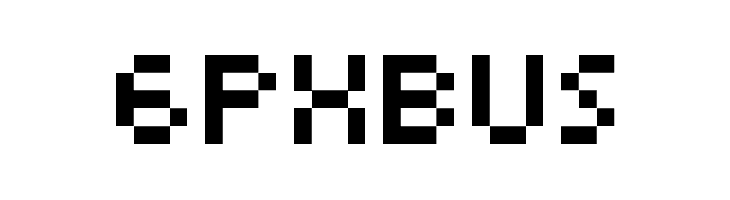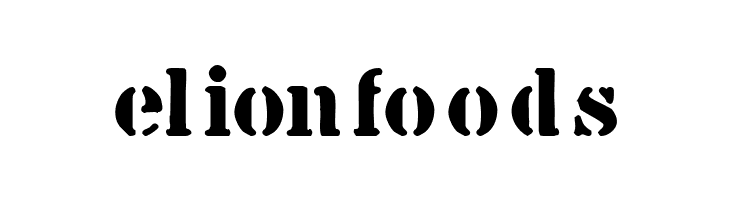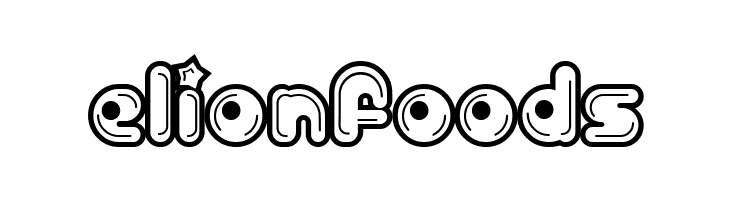
A playful decorative font with bear illustrations integrated into each letter.
A playful, framed font with bold, rounded letterforms.
A classic blackletter font with ornate, angular strokes and decorative flourishes.
A modern sans-serif font with geometric shapes and uniform strokes.
A bold, geometric font with a futuristic and digital aesthetic.
A bold, angular blackletter-inspired font with a modern twist.
A pixelated, retro-style font with a digital, blocky appearance.
A bold, geometric font with angular, blocky letterforms and a modern aesthetic.
A bold, hand-drawn font with dynamic and expressive strokes.
A bold, stencil-style font with high contrast and geometric shapes.
A bold, stencil-style font with cutouts for an industrial look.
A bold, playful font with a double-outline and cartoonish style.
Ornamental bird stencil illustrations for decorative use.
Ornamental dingbat font with bird and nature stencil designs.
Ornamental font with each glyph as a distinct bird illustration.
A bold, geometric font with a modern, futuristic style and uniform stroke width.